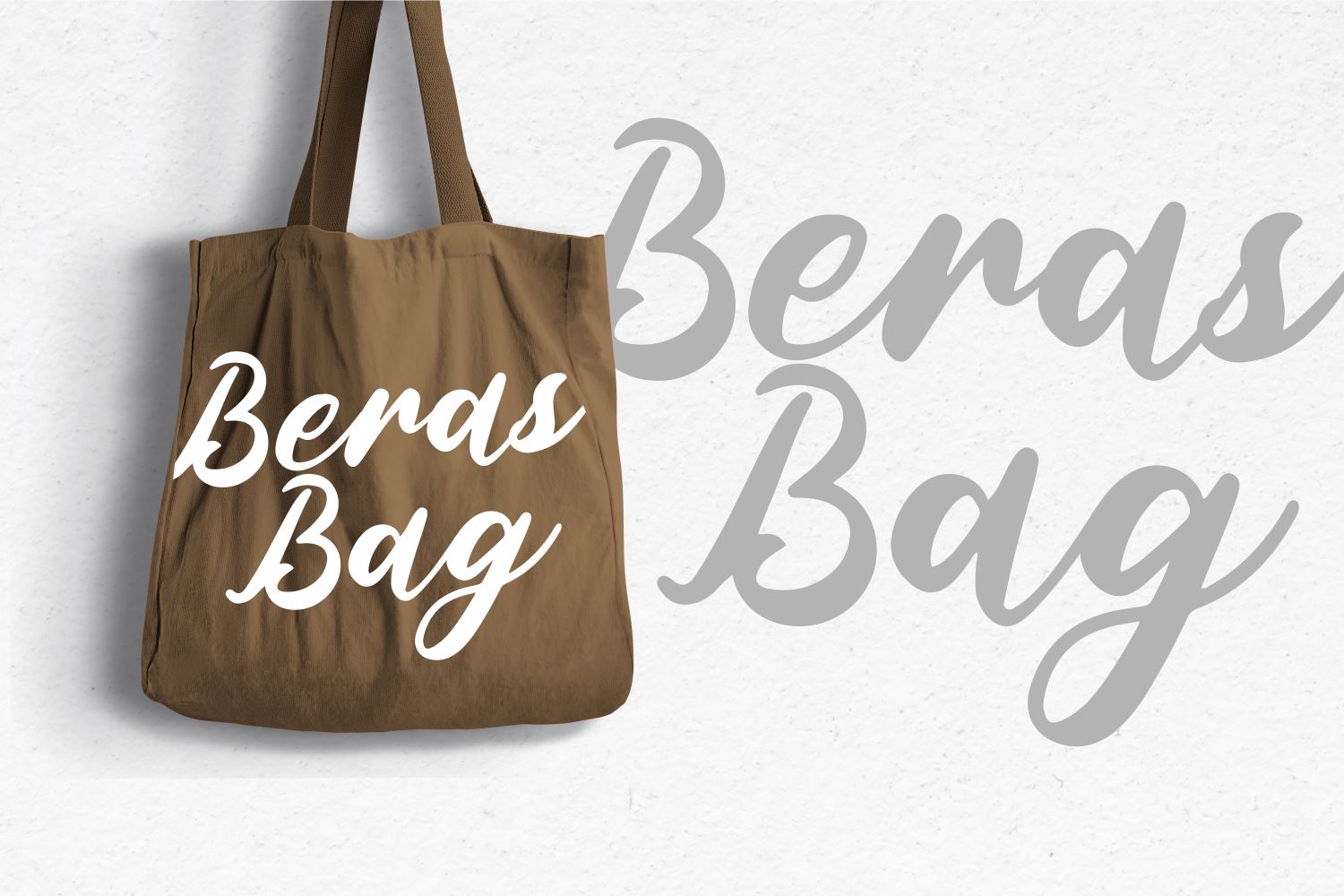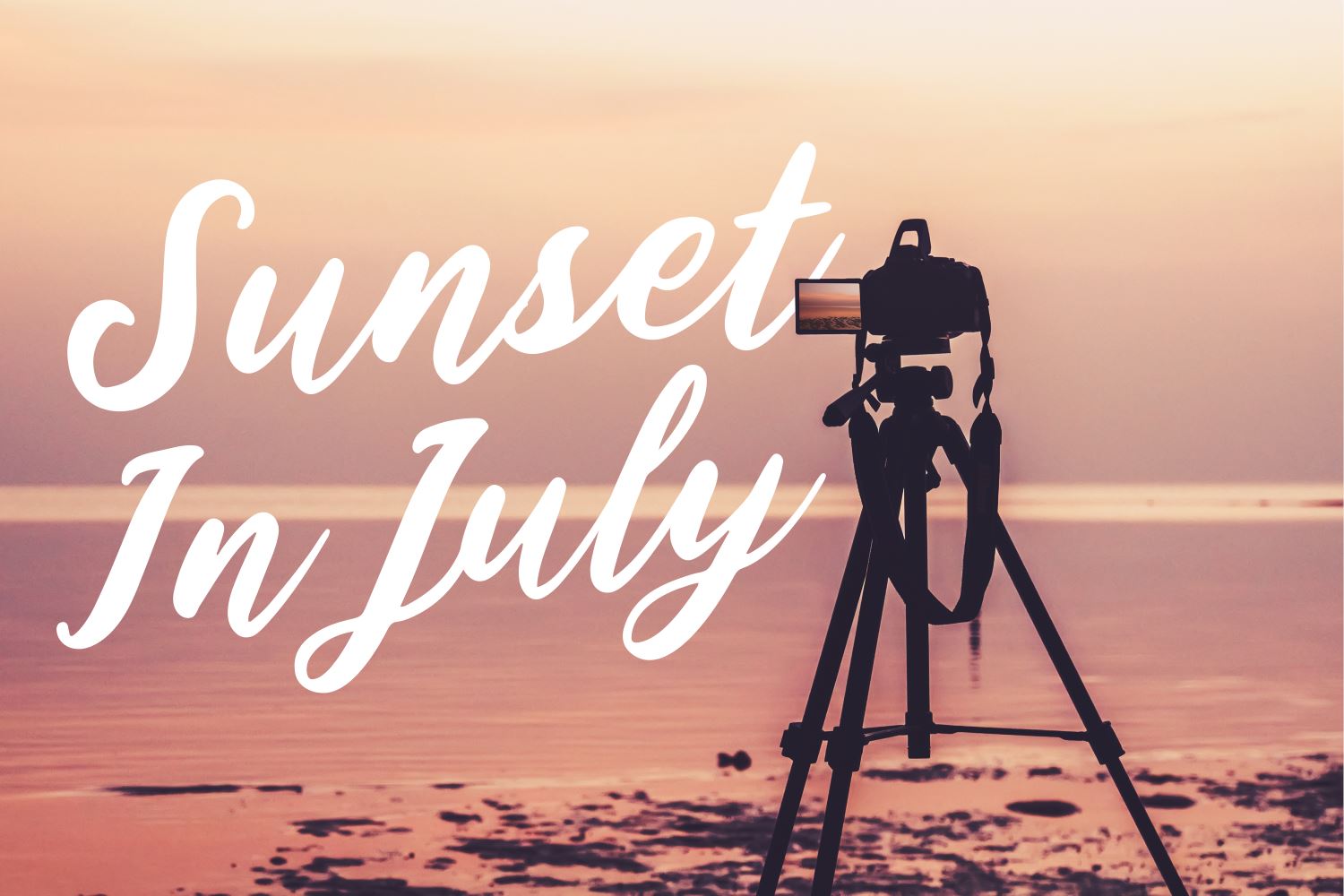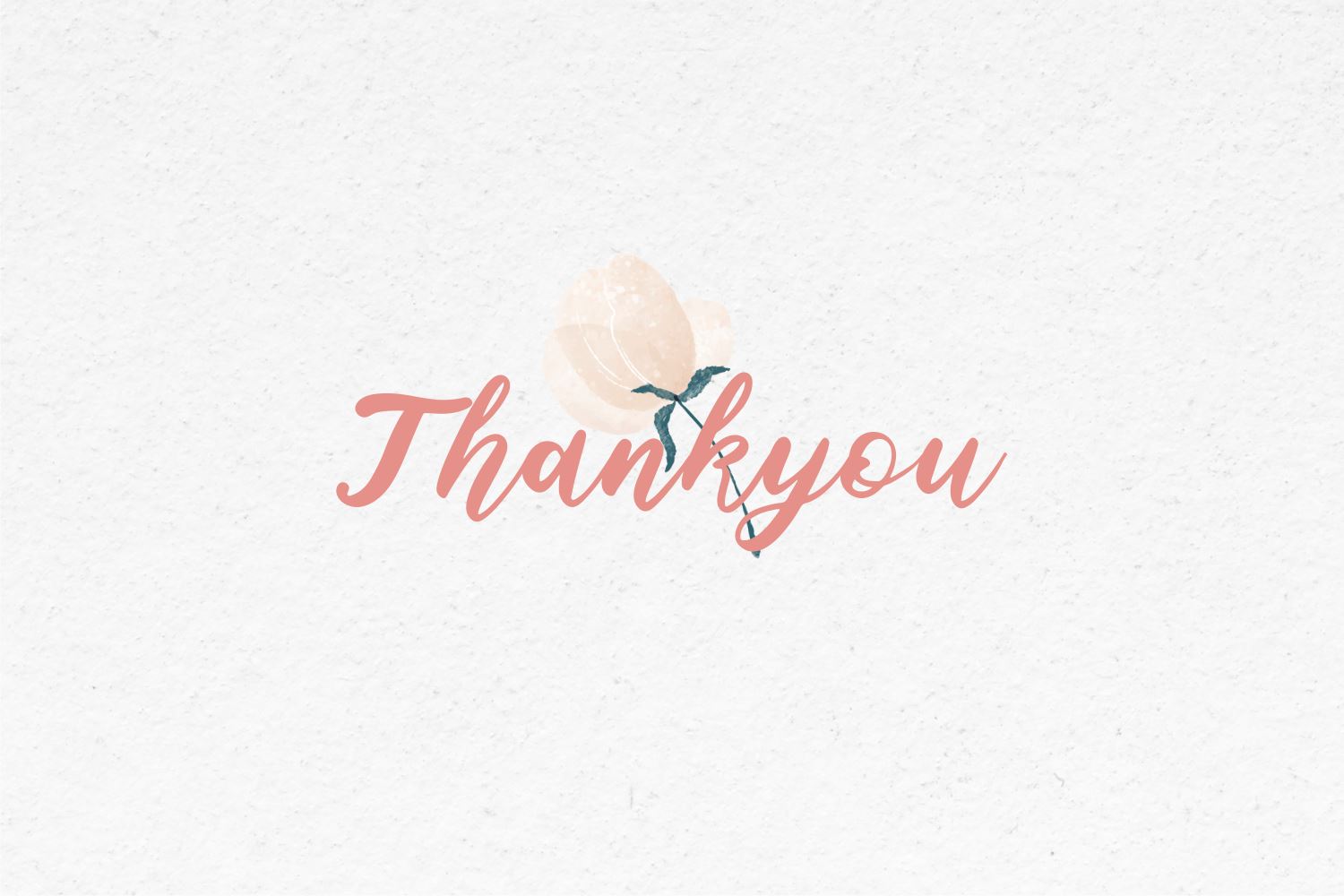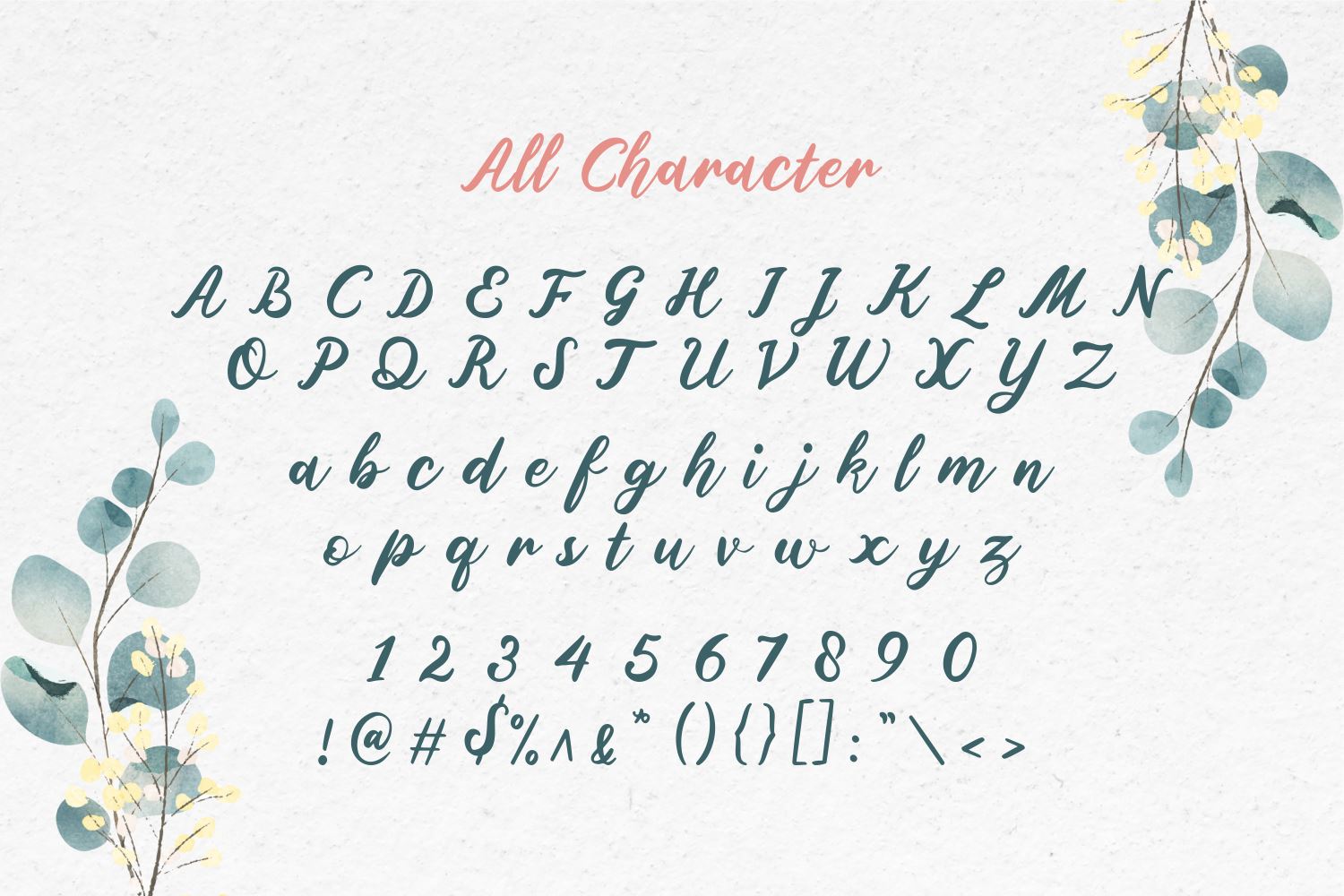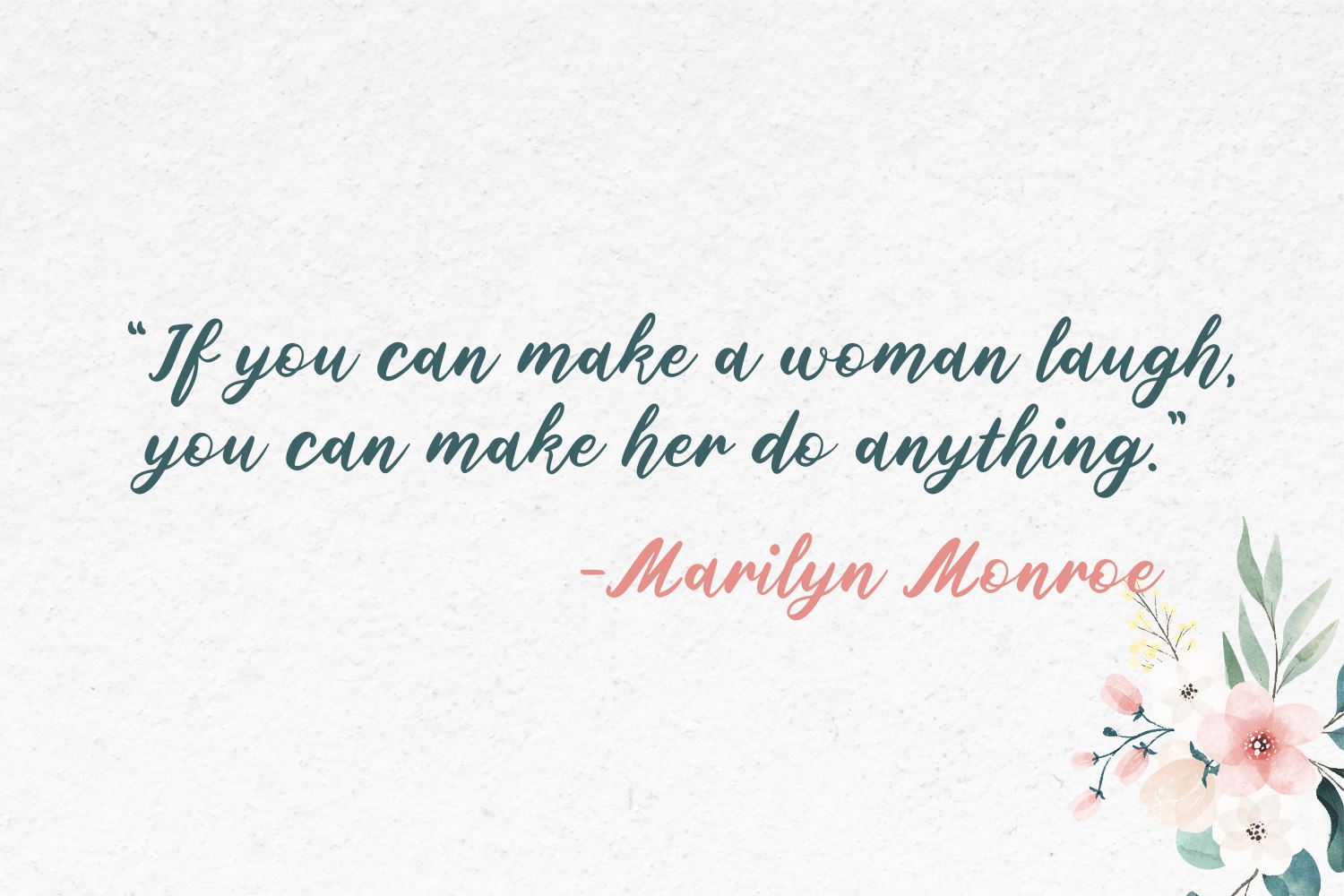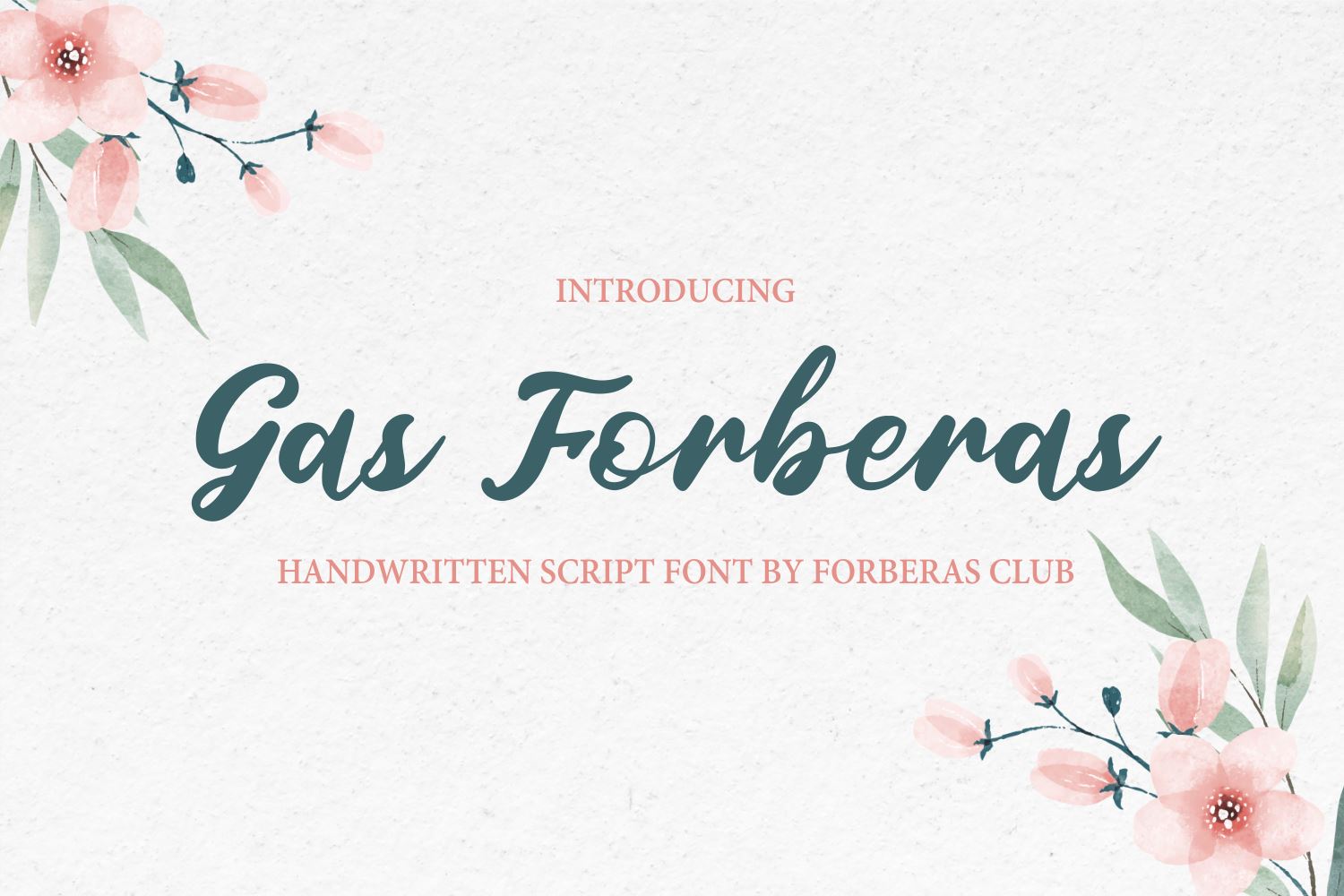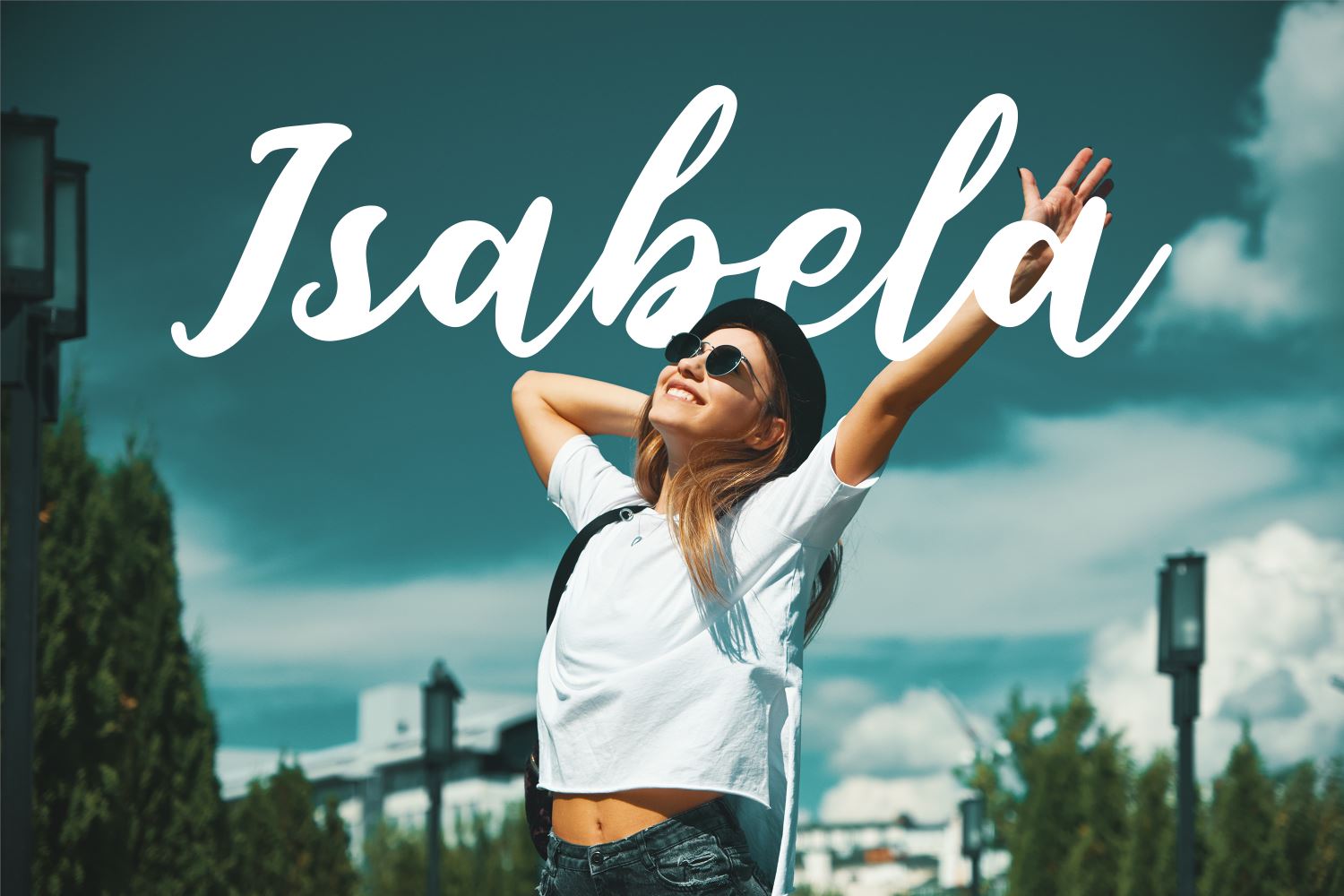
Gas Forberas
About Gas Forberas
Introducing Gas Forberas Font by Forberas Club Gas forberas is a Modern Handwritten Font. Gas Forberas is perfect for book cover, product packaging, branding project, megazine, social media, wedding, or just used to express words above the background.This font includes TTF and OTF, This font also multilingual support.